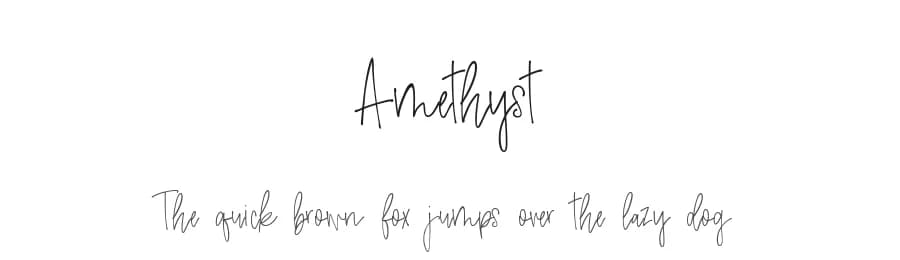
About Amethyst Font
Amethyst Specifications
Amethyst Font is a script font that shines as a display or heading face. Pair it with a clean sans-serif or serif font for body text β the contrast creates a clear hierarchy while the two styles stay balanced and easy to read.
Amethyst Font